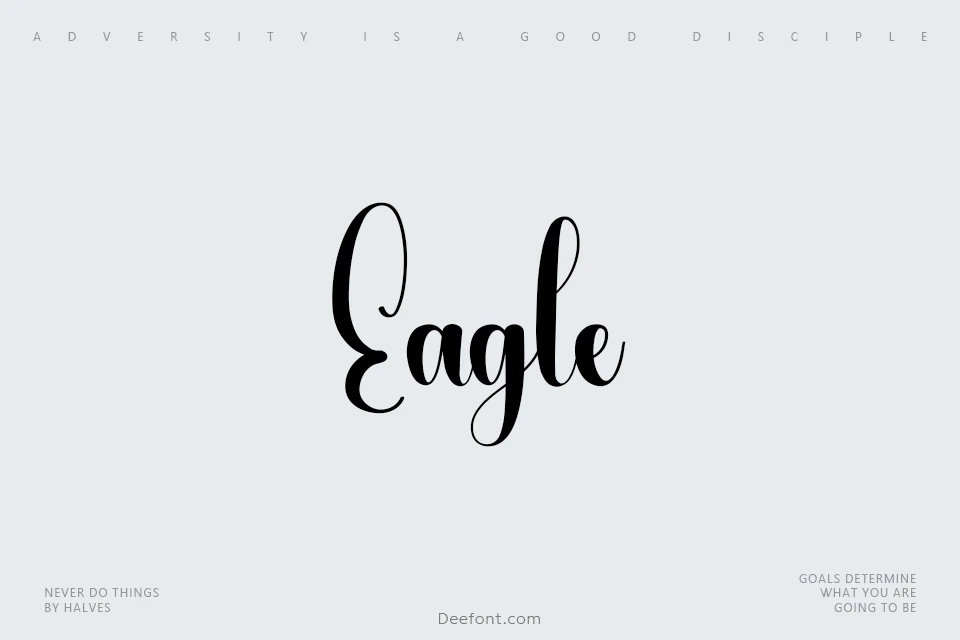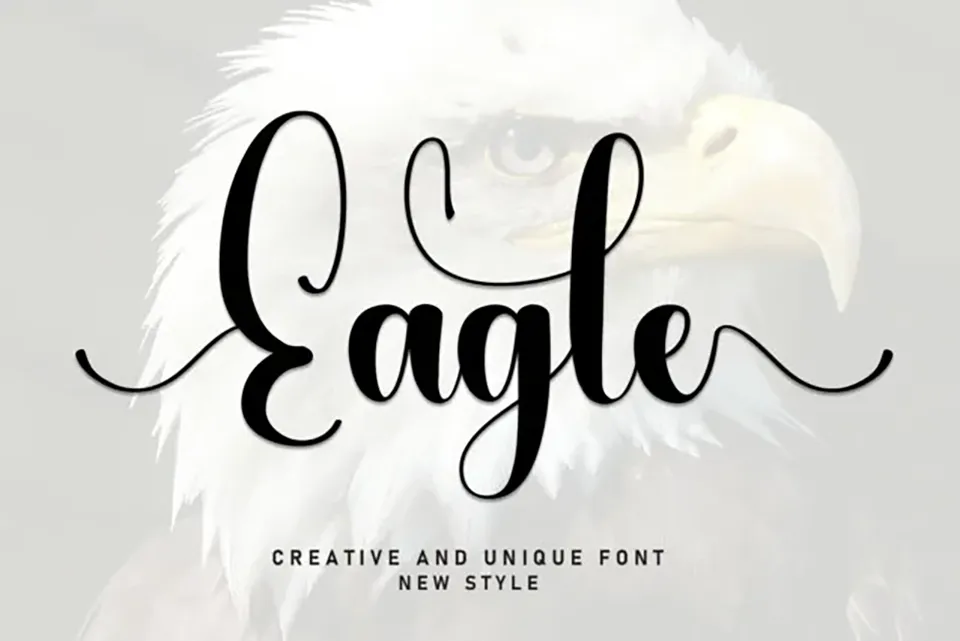
Eagle Script Font
Eagle Script Font is a modern, stylish copperplate calligraphy font that blends classic elegance with contemporary flair. Featuring a dancing baseline and beautifully flowing strokes, this typeface is perfect for headings, signatures, logos, wedding invitations, t-shirts, letterheads, signage, posters, badges, and more. Its versatility and charm make it ideal for a wide range of creative design projects.